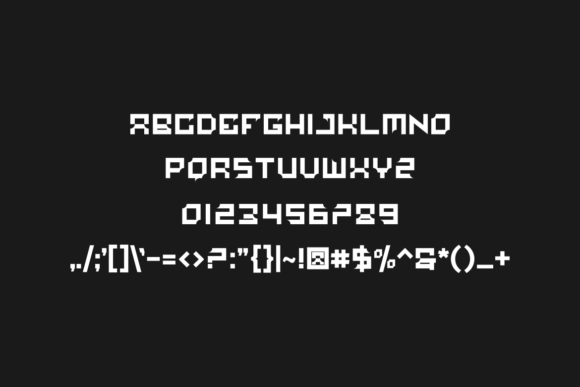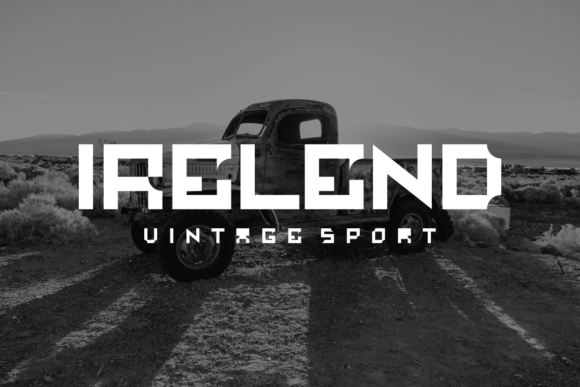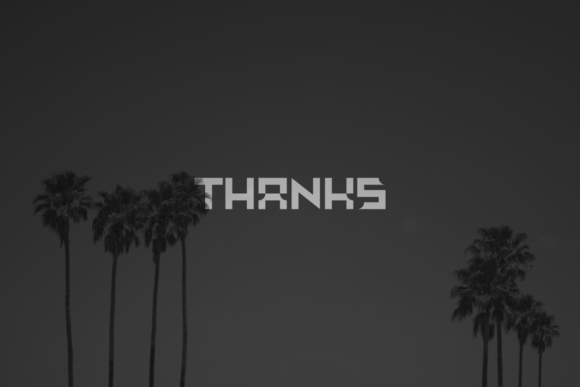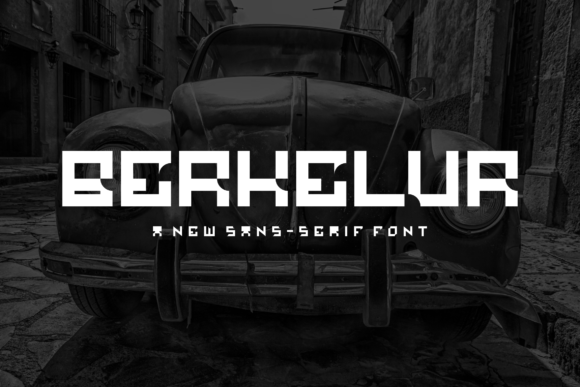
Introducing Berkelur Font: The Modern Display Font You Need
First Impressions: What I Love About Berkelur Font
• ✨ Bold and Authentic: Berkelur Font exudes confidence and modernity, making it perfect for projects that require a strong visual statement.
• ✅ Versatile: Whether you’re working on a logo, esport design, or any branding project, Berkelur Font adapts seamlessly across various contexts.
• 🔥 Attention-Grabbing: The font’s unique style ensures it stands out, capturing the audience’s attention instantly.
A Quick Review: The Good and the Quirks
• ⚡️ Instant Recognition: Its distinctive style makes it easily recognizable, even at smaller sizes.
• 💻 Digital-Friendly: Designed with digital use in mind, Berkelur Font looks fantastic on screens, making it ideal for web and social media projects.
Small Quirks:
• 🤔 Legibility at Small Sizes: While it’s stunning at larger sizes, Berkelur Font can lose some legibility when scaled down. It’s best used at 24px or larger for optimal impact.
• ⚠️ Pairing Considerations: Due to its bold nature, it’s crucial to pair Berkelur Font with complementary fonts that provide enough contrast without overpowering it.
The Story Behind Berkelur Font
Berkelur Font was inspired by the need for a modern, bold display font that could capture the essence of contemporary design while being versatile enough for various applications. Its creator aimed to craft a font that would not only stand out but also complement a wide range of design projects, from esport logos to digital marketing materials.
Font Name Berkelur Font
Author kalingga.albert
Q: What makes Berkelur Font unique?
Berkelur Font’s uniqueness lies in its bold, authentic style combined with its versatility across digital and print platforms.
Q: Is Berkelur Font suitable for body text?
While Berkelur Font is primarily designed as a display font, it’s best used for headlines and titles. For body text, consider pairing it with a more readable font.
Q: Does Berkelur Font support OpenType features?
Yes, Berkelur Font supports OpenType features, including stylistic alternates and glyphs, allowing for creative and customized typography.